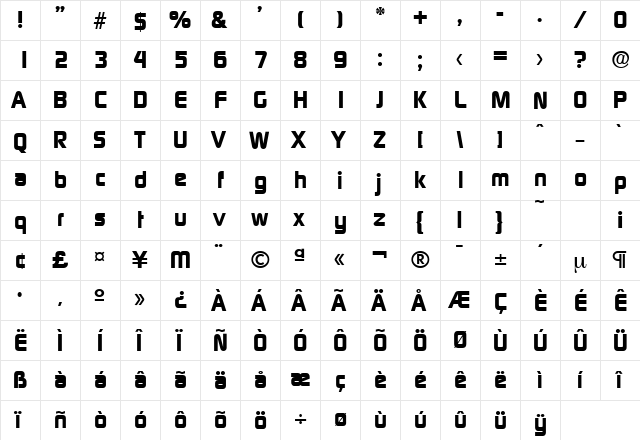
Digital-Serial-ExtraBold Regular
Design Context for Digital-Serial-ExtraBold Typeface
Digital-Serial-ExtraBold channels digital-age aesthetics through its sharp, structured letterforms — ideal for brands that want to signal innovation. Its bold stroke weight gives it real presence on the page.
Pro Tip: Try Digital-Serial-ExtraBold with generous letter-spacing in UI labels and navigation — the geometric forms benefit from room to breathe.